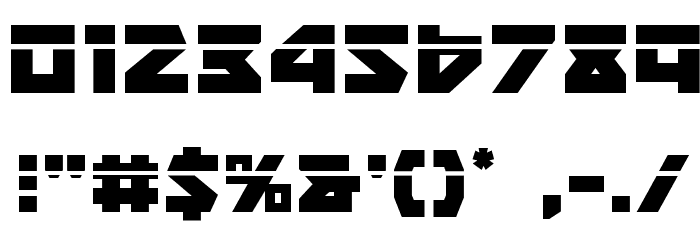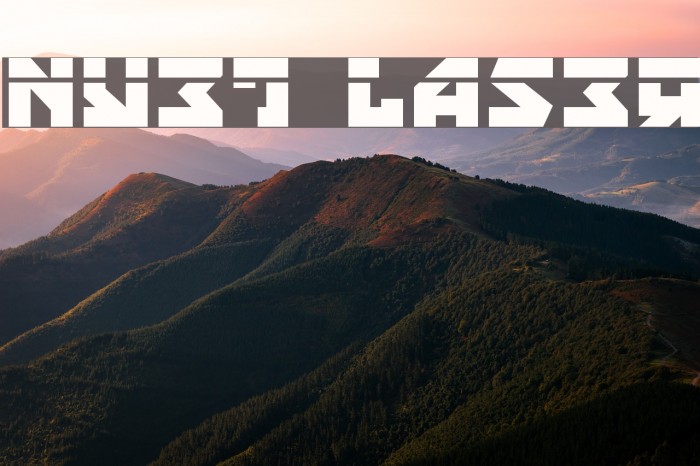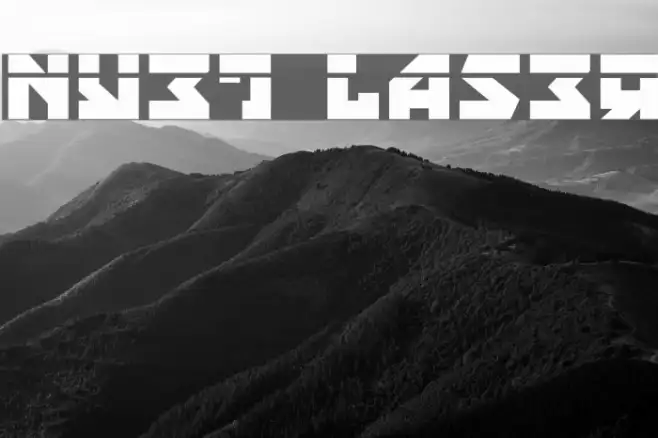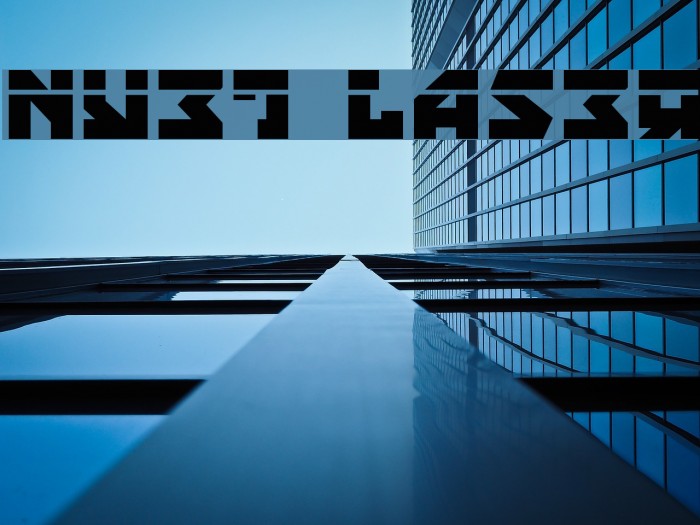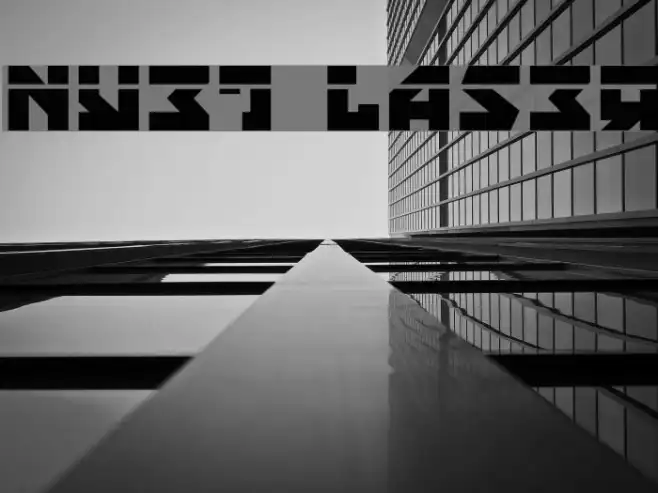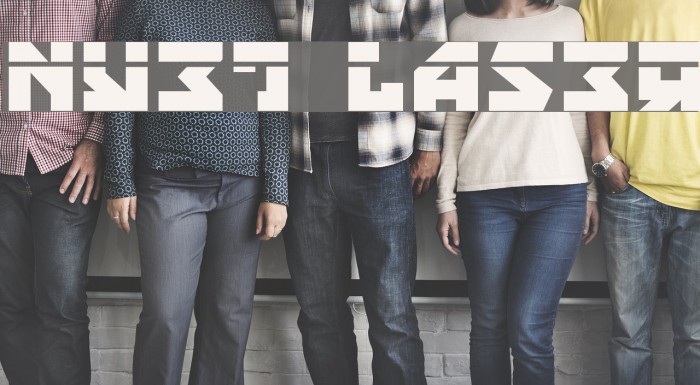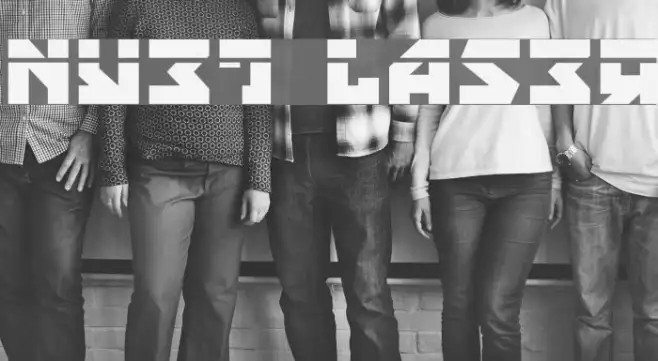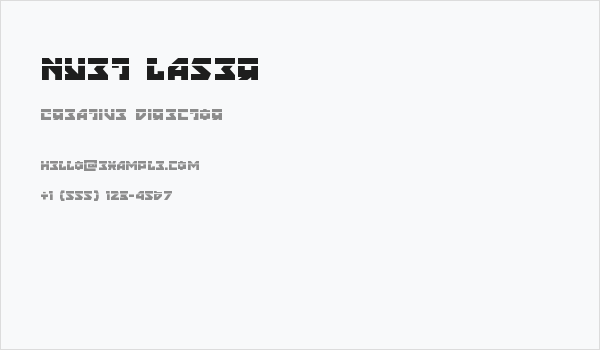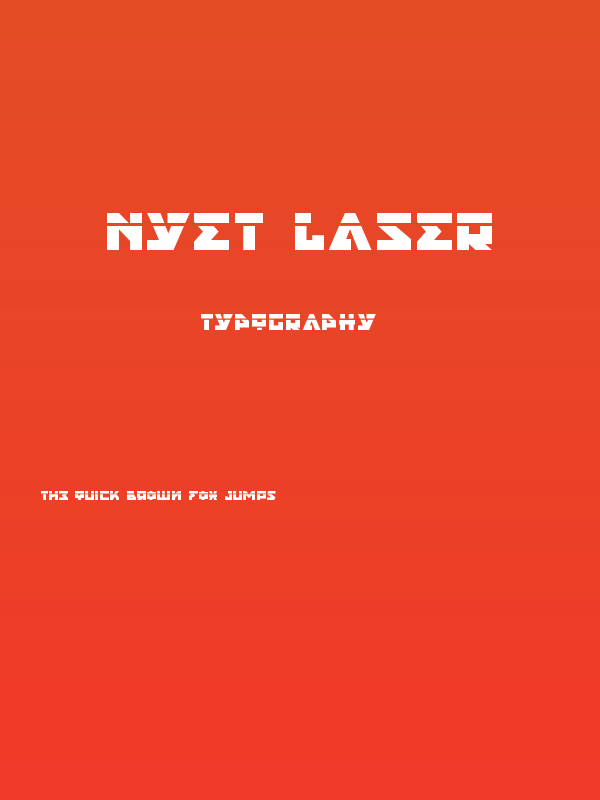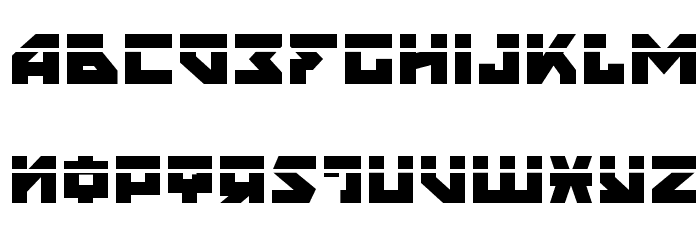
Nyet Laser Font
Nyet Laser Description
This font features a bold, geometric design with sharp angles and a futuristic aesthetic. The characters are constructed with a blocky, stencil-like appearance, giving it a distinct, industrial feel. The uppercase and lowercase letters maintain a consistent style, with the lowercase slightly smaller but equally bold. Numbers and special characters follow the same angular, robust design, ensuring uniformity across all glyphs. The font's unique style is reminiscent of digital or sci-fi themes, making it stand out in any design project.
| Proposed Projects | Ideal for sci-fi movie posters, video game titles, tech branding, and futuristic-themed designs. |